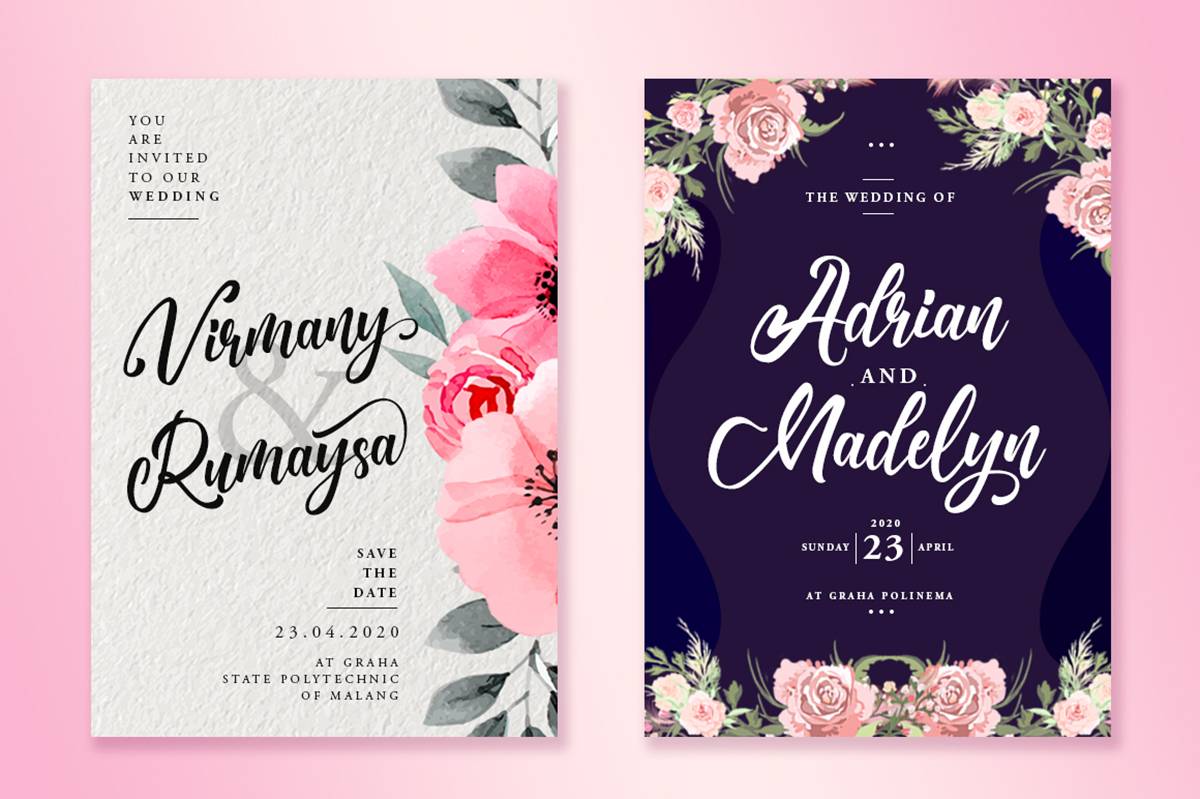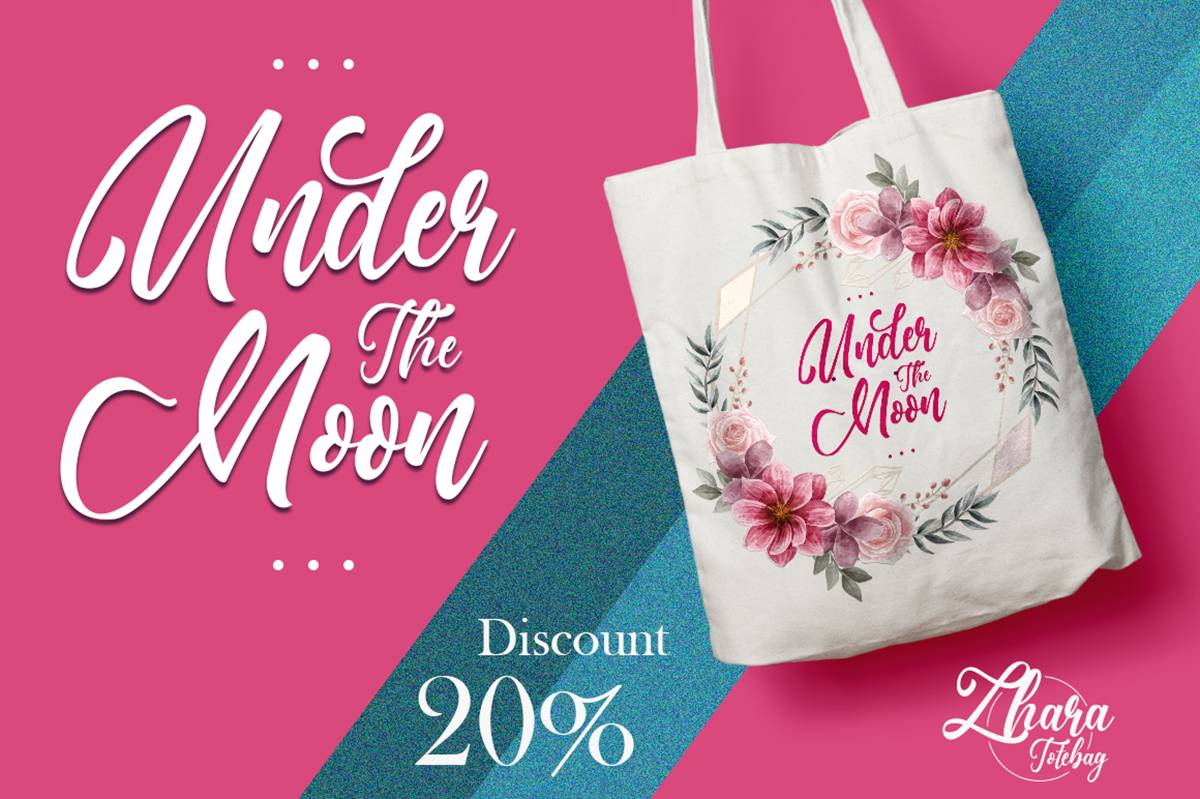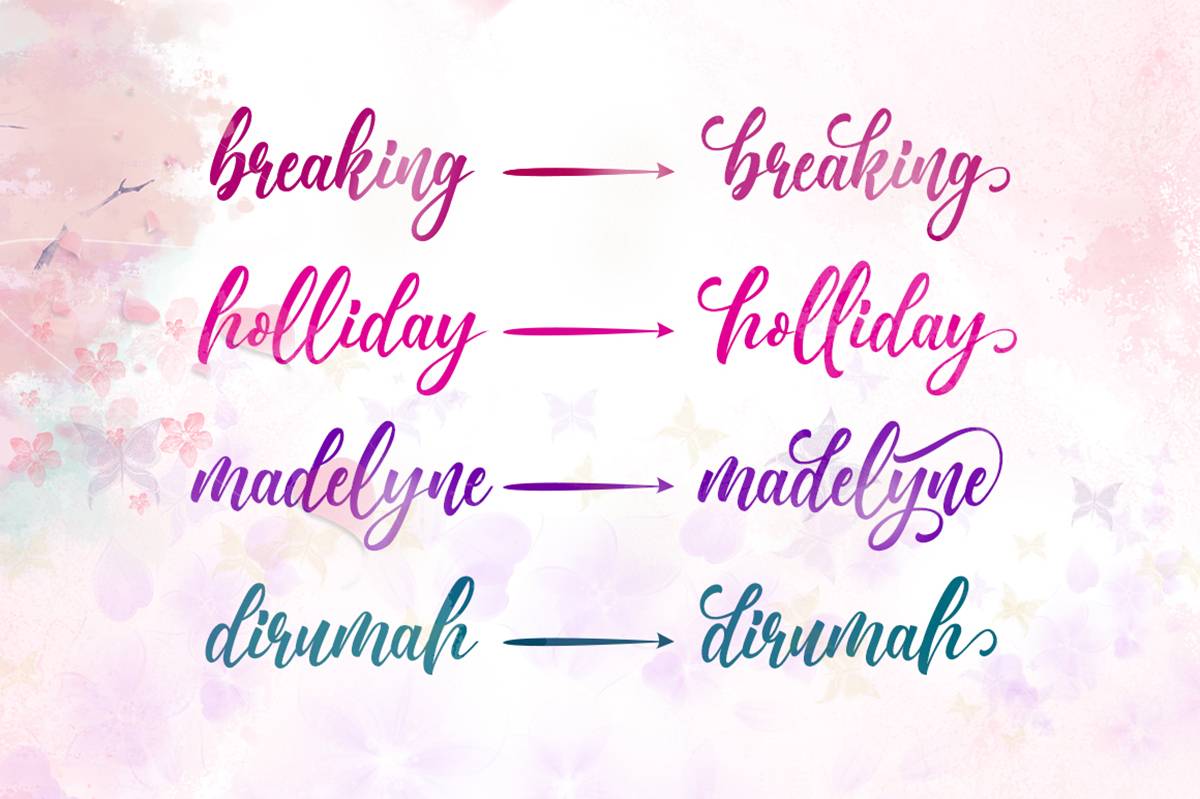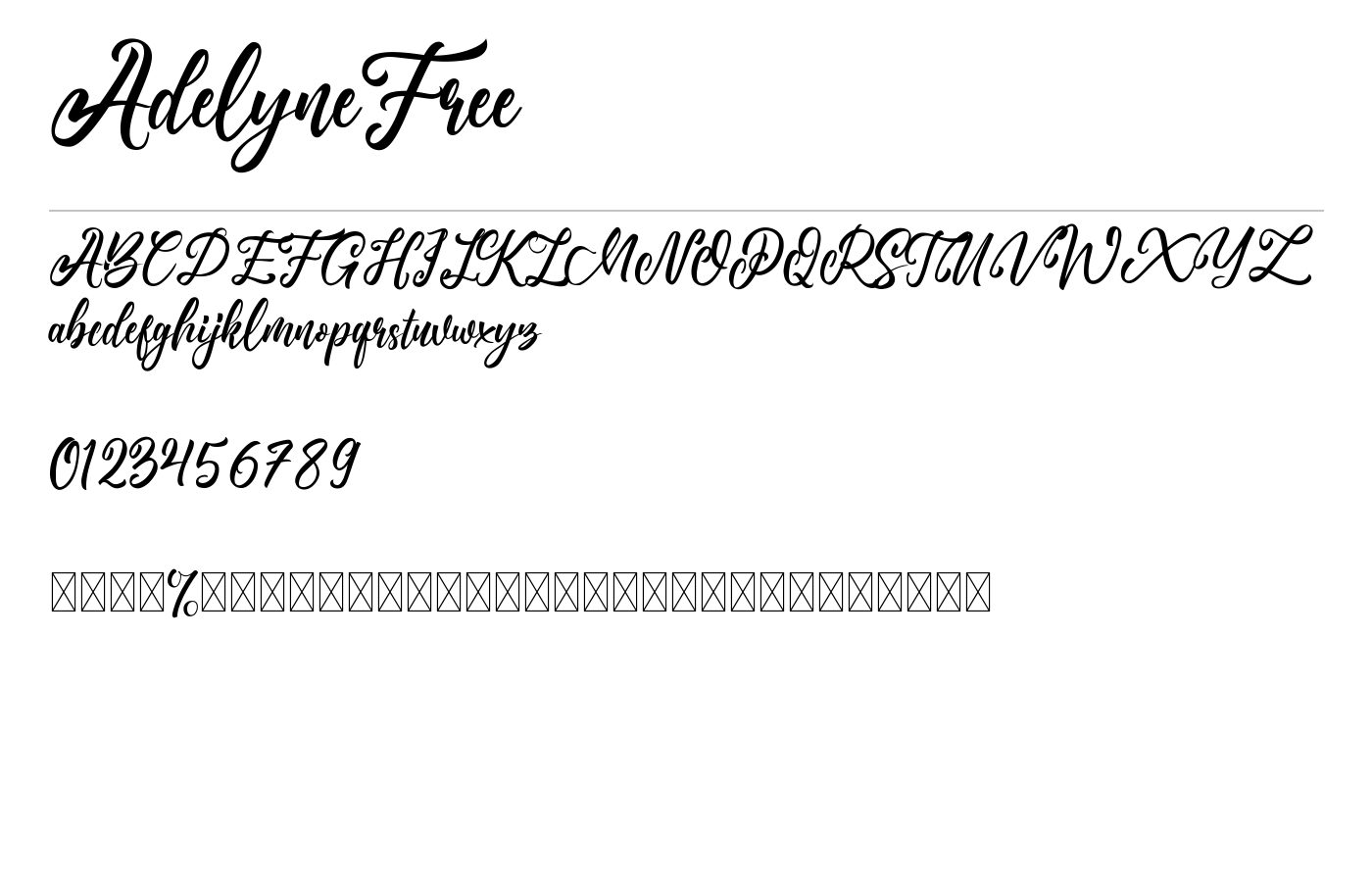
Adelyne is an elegant script font with flowing, connected letterforms that convey a graceful and sophisticated feel. Its moderate contrast and smooth curves make it perfect for branding, invitations, and headings where a touch of femininity and charm is desired. This font works well in designs that aim for a stylish, romantic, or vintage look.
| Font family | Adelyne Font |
| Designer | Aditya Rezki |